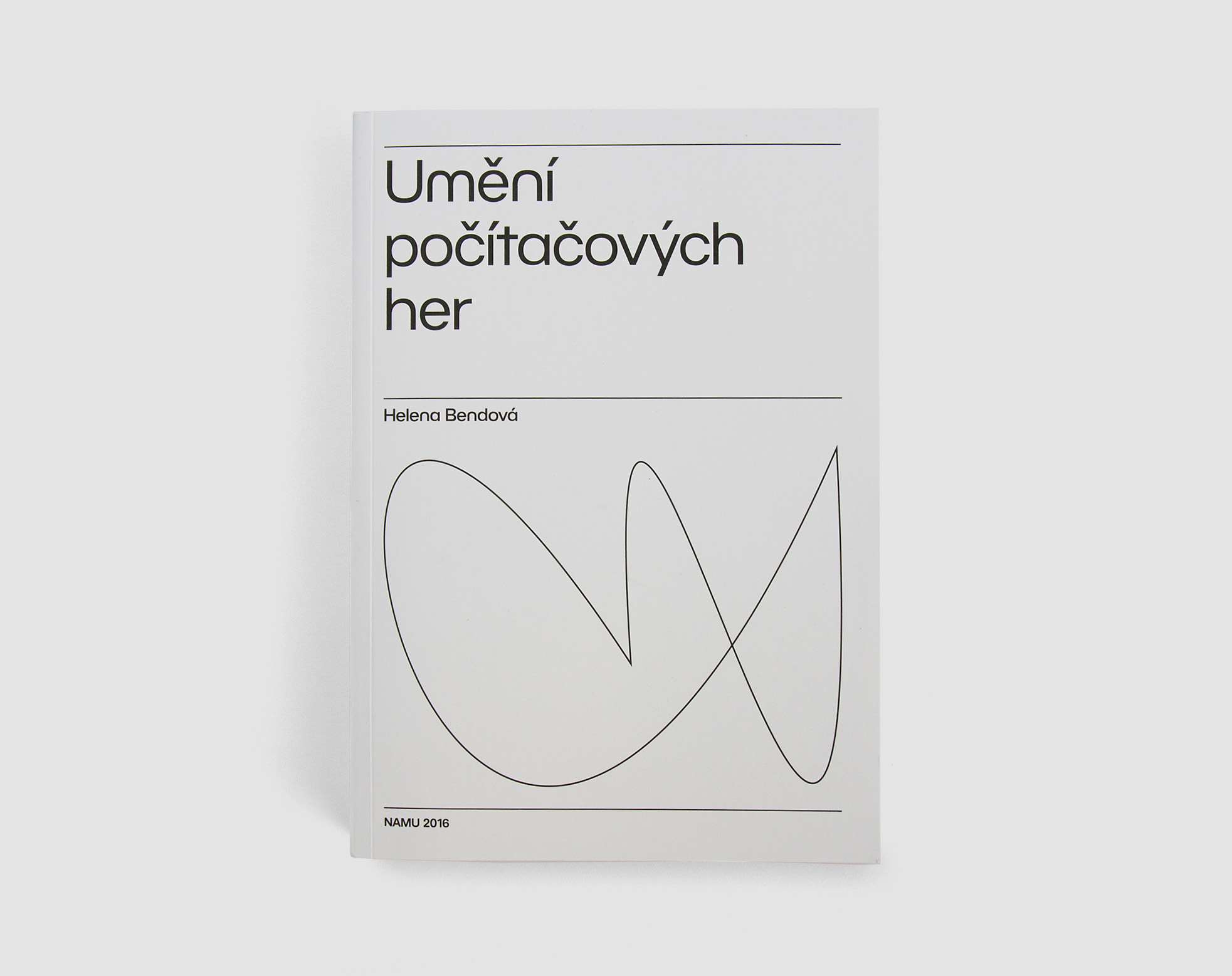
The book Art of Computer Games uses customised, slightly condensed version of BC Novatica. BC Brief is used for the cover as illustration.
Matyáš Machat (1992) graduated at the Academy of Arts, Architecture and Design in Prague with his bachelor work – typeface Eric Machat Script inspired by Eric Gill’s handwriting. It’s an extension of his previous font release Eric Machat – a redesign of Eric Gill’s most popular typeface. Matyáš’s school projects are usually original typeface, such as Clint Eastwood, Sandokan, Brief and more. His experimental approach is as playful and daring as Briefcase’s font taste. He is currently working with Vojtěch Říha on several typefaces, such as Slavia Grotesk, and improving his own existing type designs.